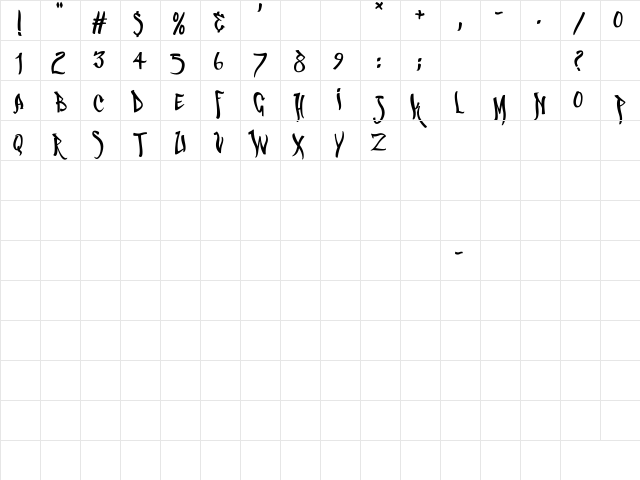
Urban Fresh Air Regular
| Designer | IMAGEX |
Design Context for Urban Fresh Air Typeface
Urban Fresh Air is a composed and adaptable typeface that performs quietly and consistently across a wide range of design contexts.